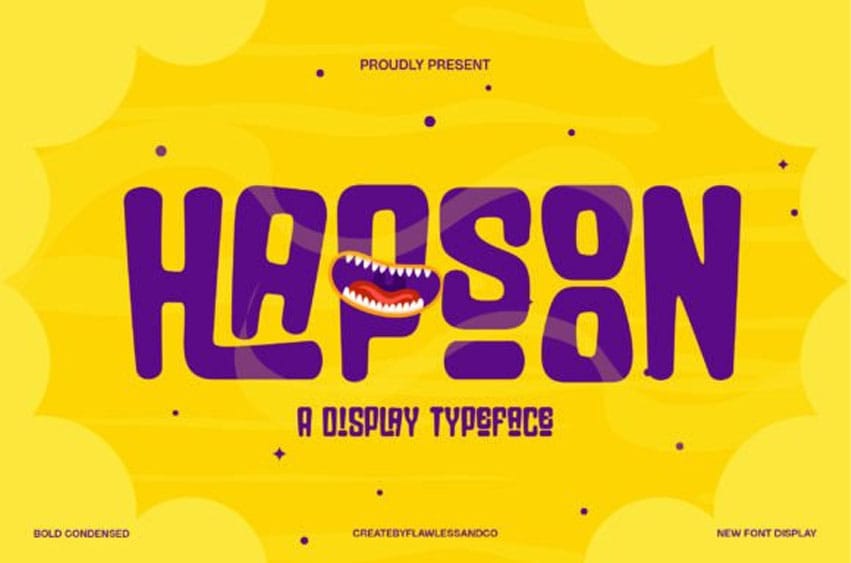
Hapsoon Font is a must-have display typeface for brand creators and designers who want their work to stand out with a bold personality and visual punch. With its striking forms and expressive style, Hapsoon is made for attention, perfect for crafting logos, headlines, and packaging that demand to be noticed.
Whether you’re designing for edgy startups, creative campaigns, or bold personal brands, Hapsoon gives your work a confident, unforgettable voice that breaks through the noise.